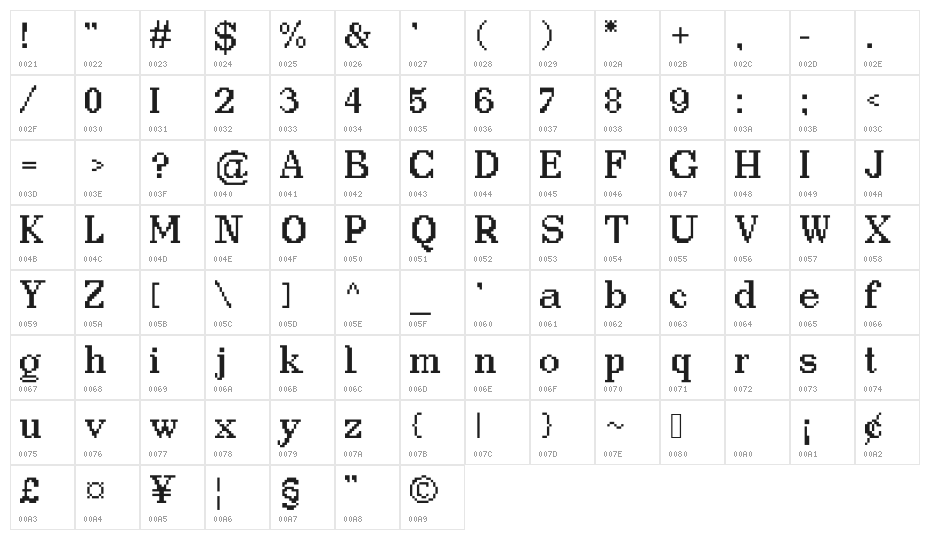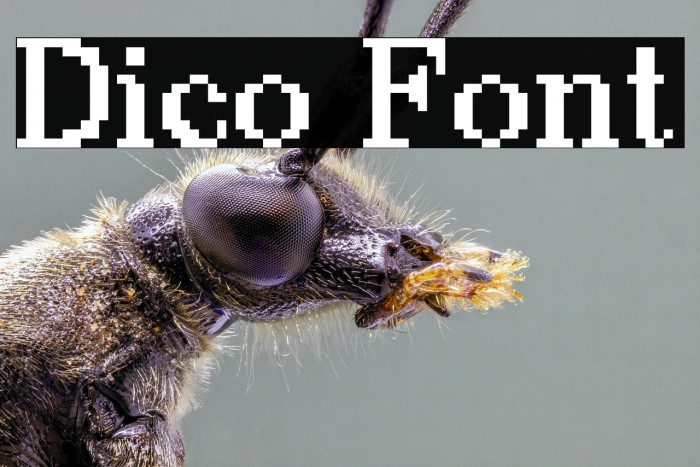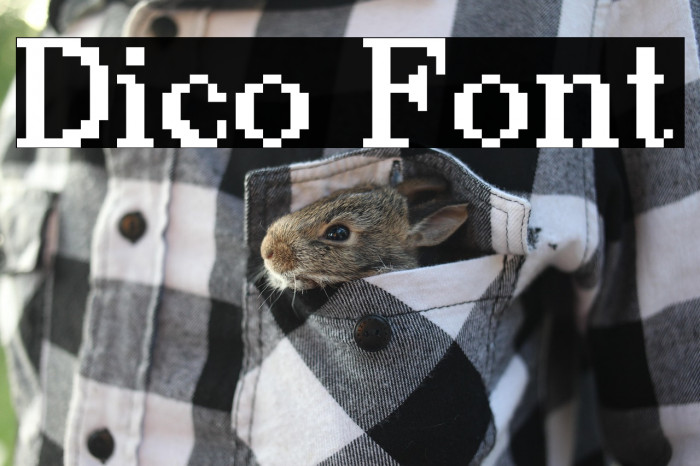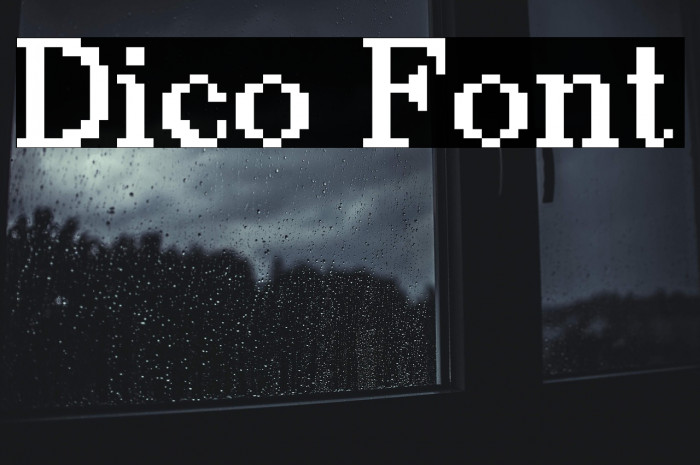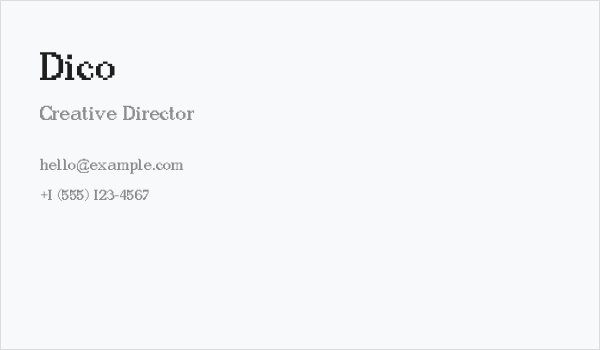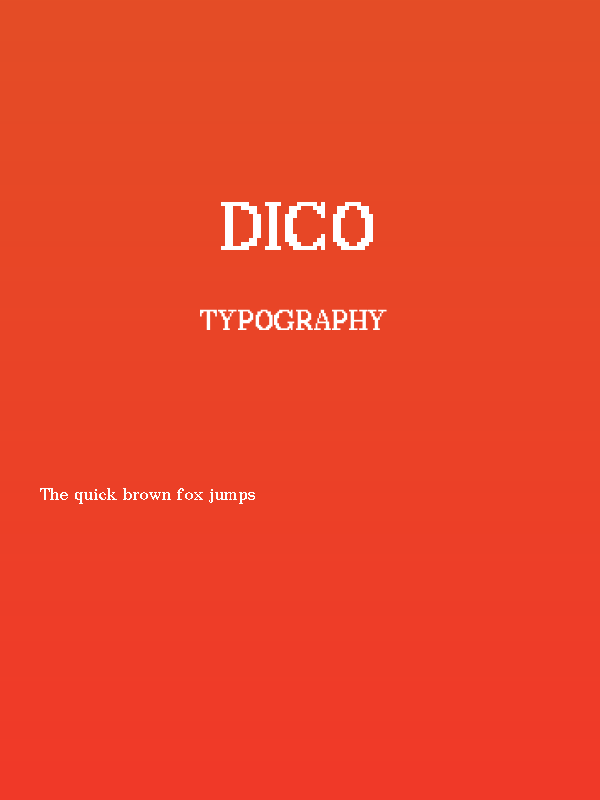
Dico Font
Dico Description
This font features a bold and distinctive slab serif style, characterized by thick, block-like serifs that give it a strong and authoritative presence. The uppercase letters are uniform in height, with a slight variation in width that adds a touch of dynamism. The lowercase letters maintain a consistent x-height, with rounded curves and sharp angles that create a balanced and readable appearance. The numerals are bold and clear, ensuring legibility in various contexts. Special characters are well-defined, complementing the overall robust design. This font's high contrast between thick and thin strokes enhances its visual impact, making it suitable for attention-grabbing headlines and titles.
| Proposed Projects | This font is perfect for branding projects, poster designs, book covers, and any application requiring a bold and authoritative typeface. |